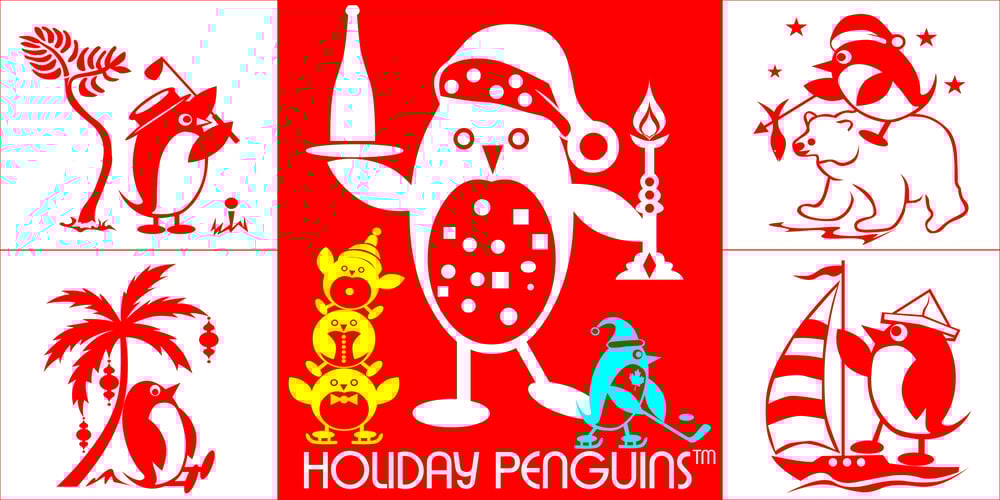
Holiday Penguins Font Family was designed by Denise Koehler and published by Deniart Systems. Holiday Penguins contains 1 styles and family package options. It’s always holiday time with this frolicking bunch of penguins. Whether celebrating the end of year holidays or prancing around on vacation, these 52 Holiday Penguins are always having a blast.